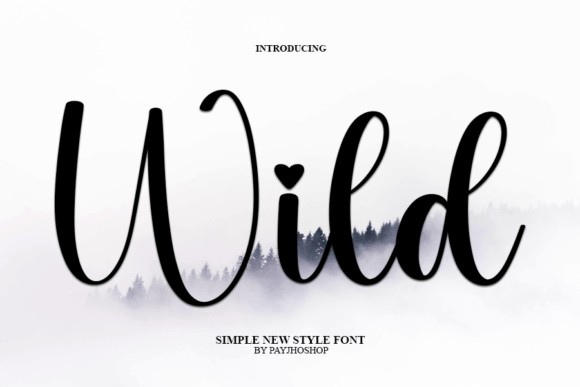
Introducing Wild, the chic and stylish handwritten font that takes your creative projects to new heights. Whether you are a tech-savvy designer, a budding entrepreneur, or simply a creative soul, Wild is the font that will make your vision come alive. Carefully crafted with a touch of elegance and a splash of boldness, this script font exudes personality that will leave a lasting impact.
Explore the endless possibilities with Wild. Create eye-catching logos that reflect your brand's unique identity. Compose breathtaking posters that draw attention from across the room. Elevate your social media presence with captivating graphics that speak volumes. The possibilities are infinite, allowing you to unleash your creativity and leave an unforgettable mark on the digital landscape.
Wild is not just another font; it's a powerful tool that empowers you to express yourself in ways you never thought possible. Its carefully crafted characters dance across your screen, leaving a trail of elegance and sophistication. With its natural flow and smooth curves, Wild brings a human touch to your digital creations, making them resonate with your audience on a deeper level.
So, embrace the Wild side of creativity and embark on a journey of self-expression. Let your imagination soar as you create stunning designs that captivate and inspire. Make a statement, leave a mark, and let Wild be your guide to greatness.